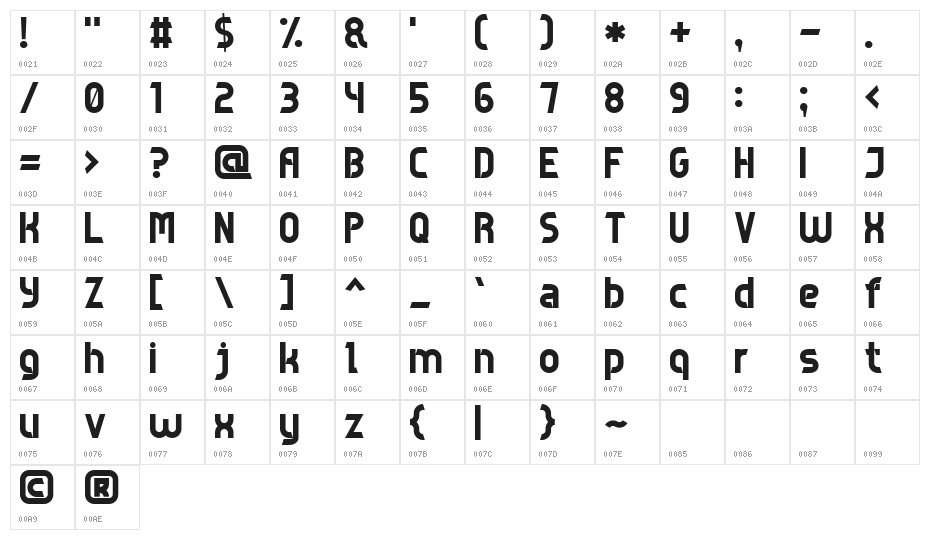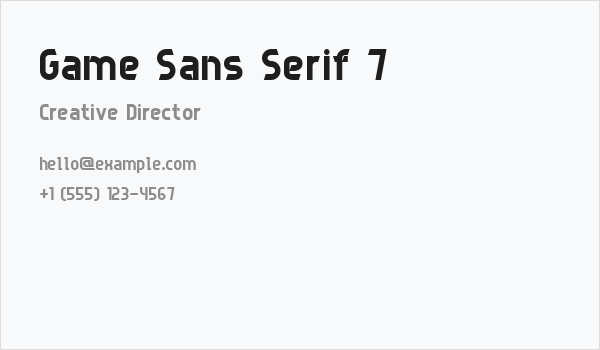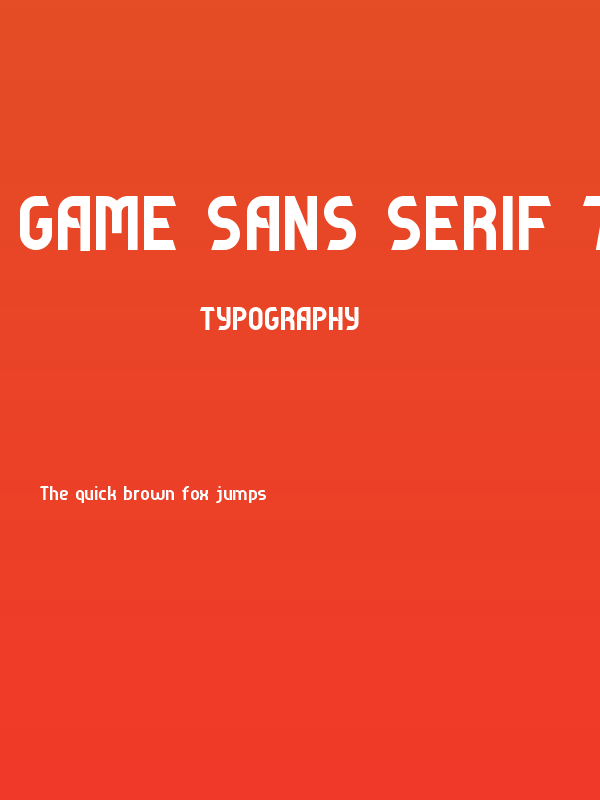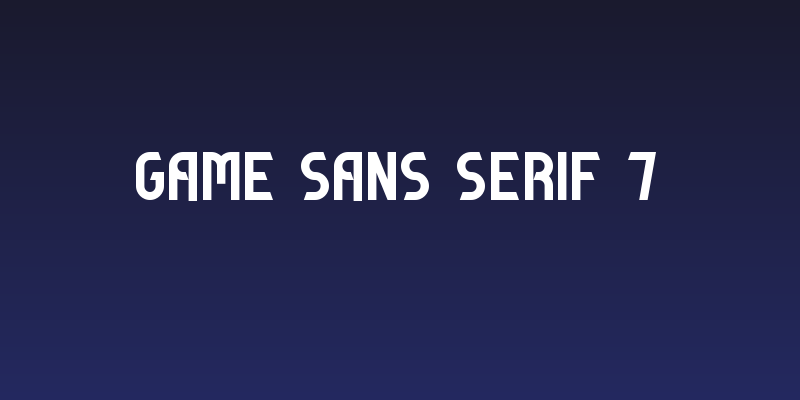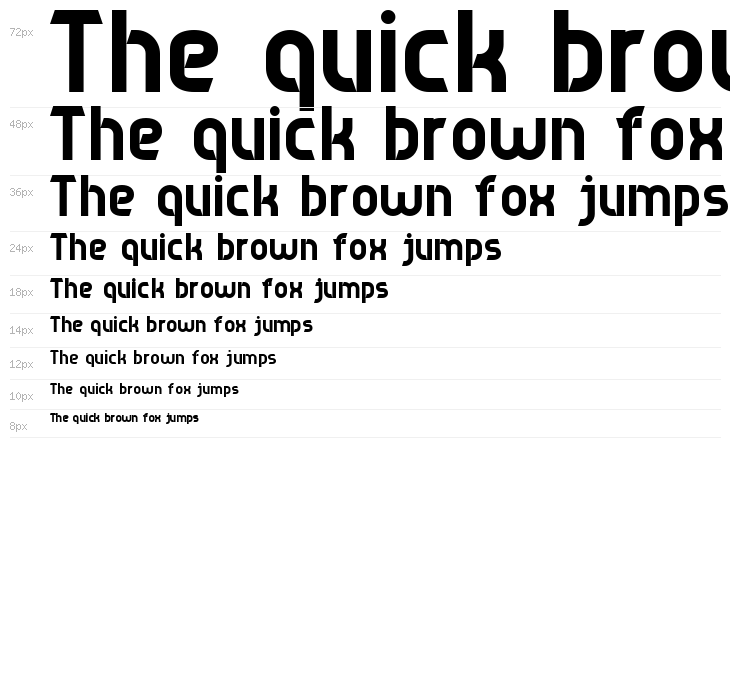
Game Sans Serif 7 Font
Game Sans Serif 7 Description
This font features a bold and modern sans-serif style with a geometric and slightly futuristic appearance. The characters are uniform in width, giving a monospaced feel, yet they maintain a distinct and playful edge. The uppercase letters are blocky and robust, while the lowercase letters retain a similar structure with a touch of rounded corners, adding a softer touch to the overall design. The numerals are consistent with the letterforms, ensuring readability and coherence. Special characters are well-integrated, maintaining the font's unique style. This font is ideal for projects that require a modern and dynamic look.
| Proposed Projects | Ideal for video game titles, tech branding, posters, and digital interfaces. |